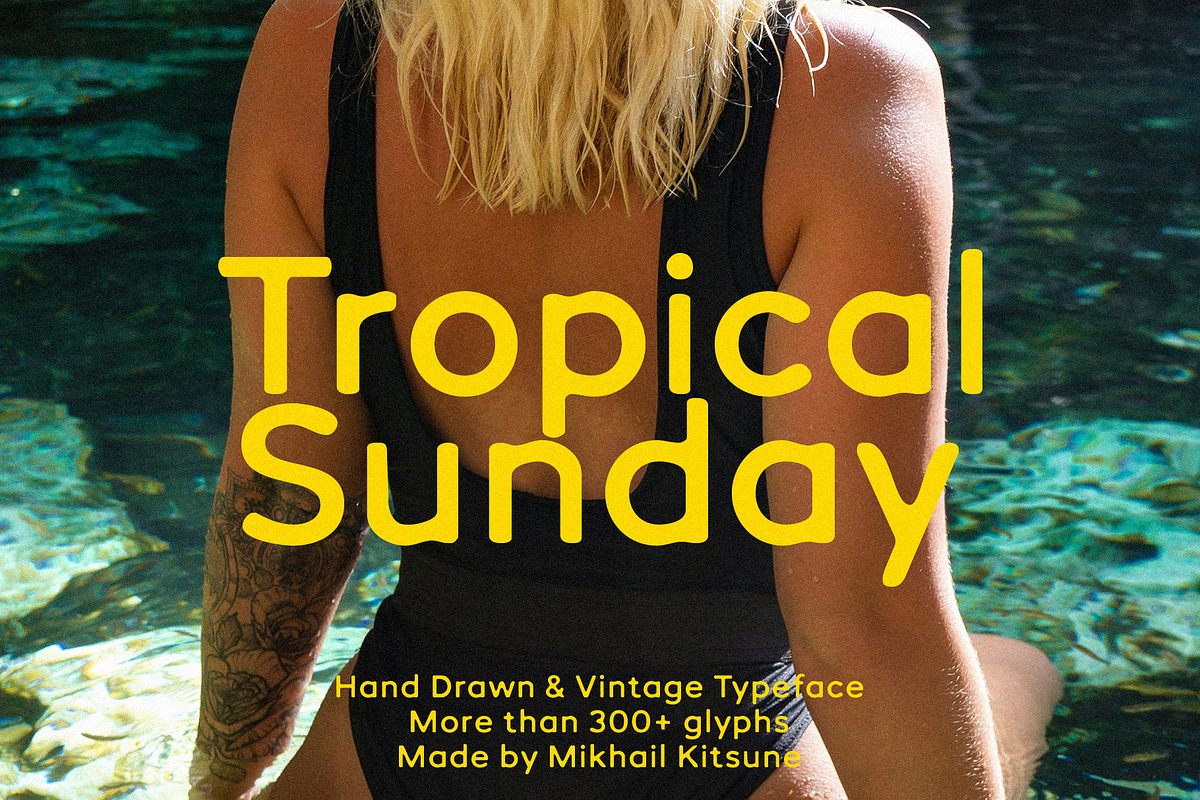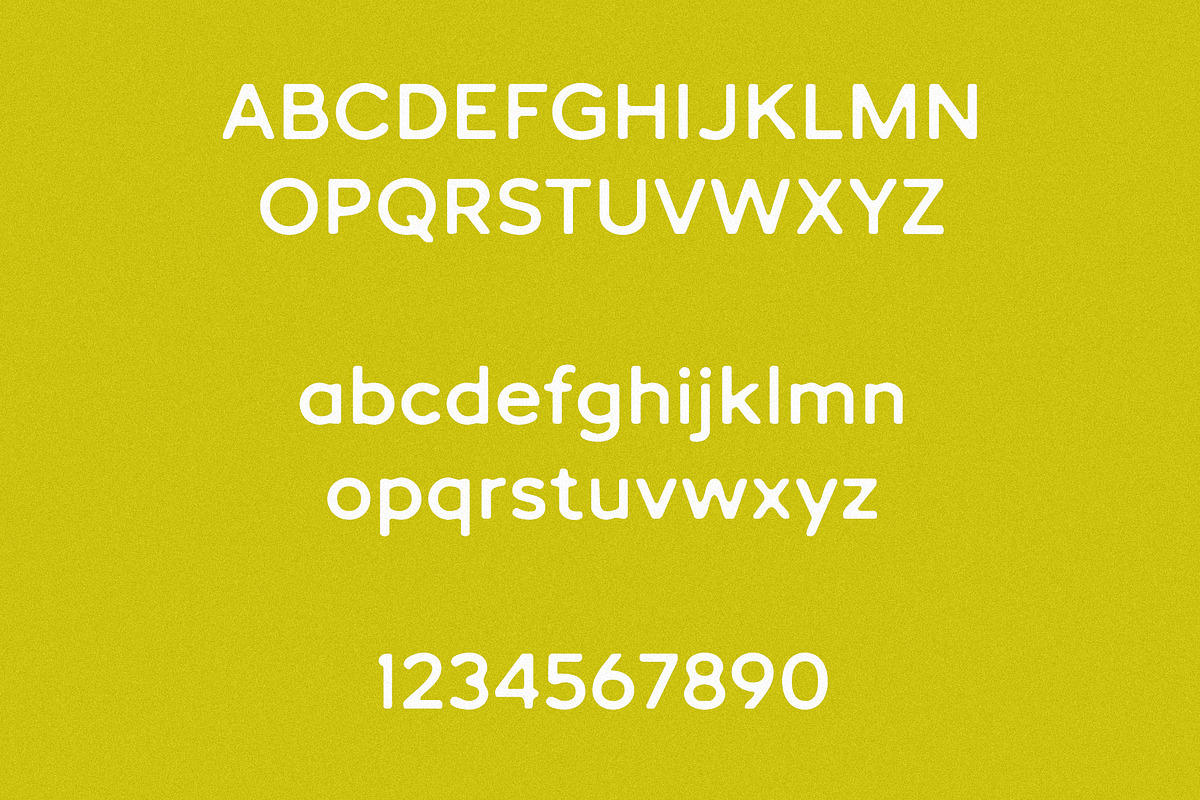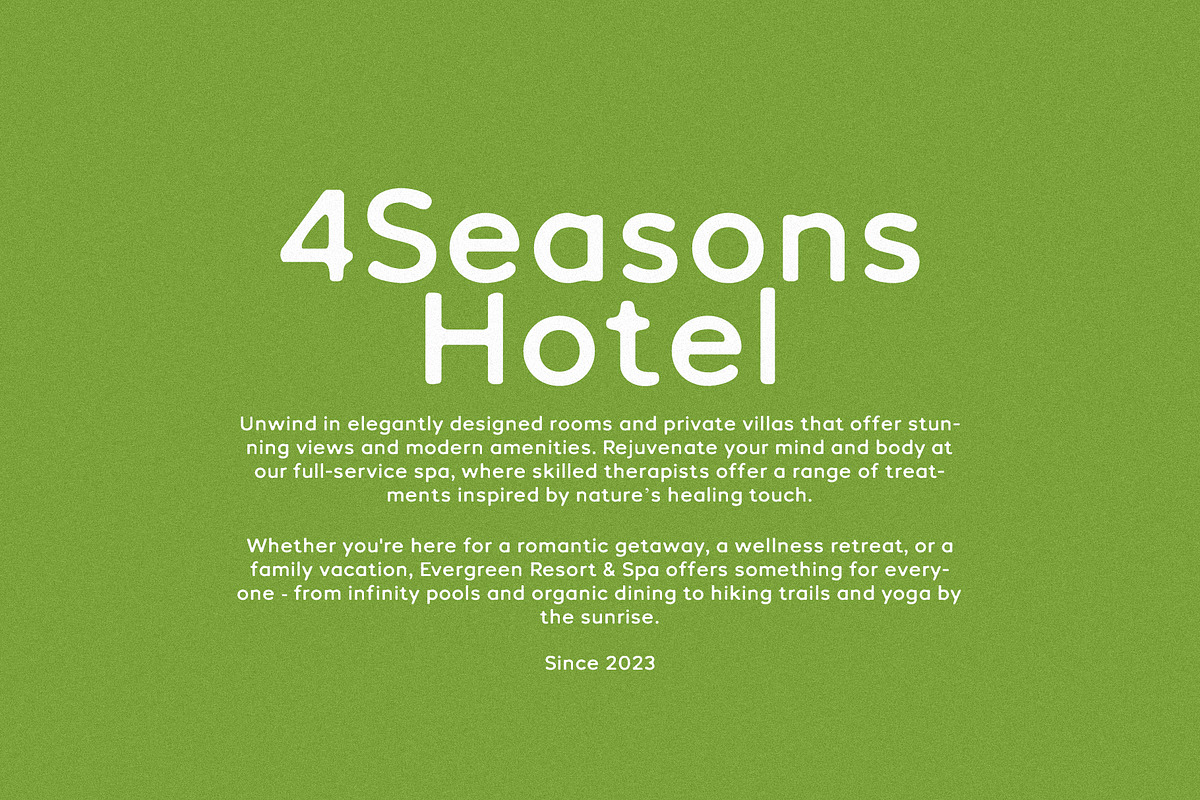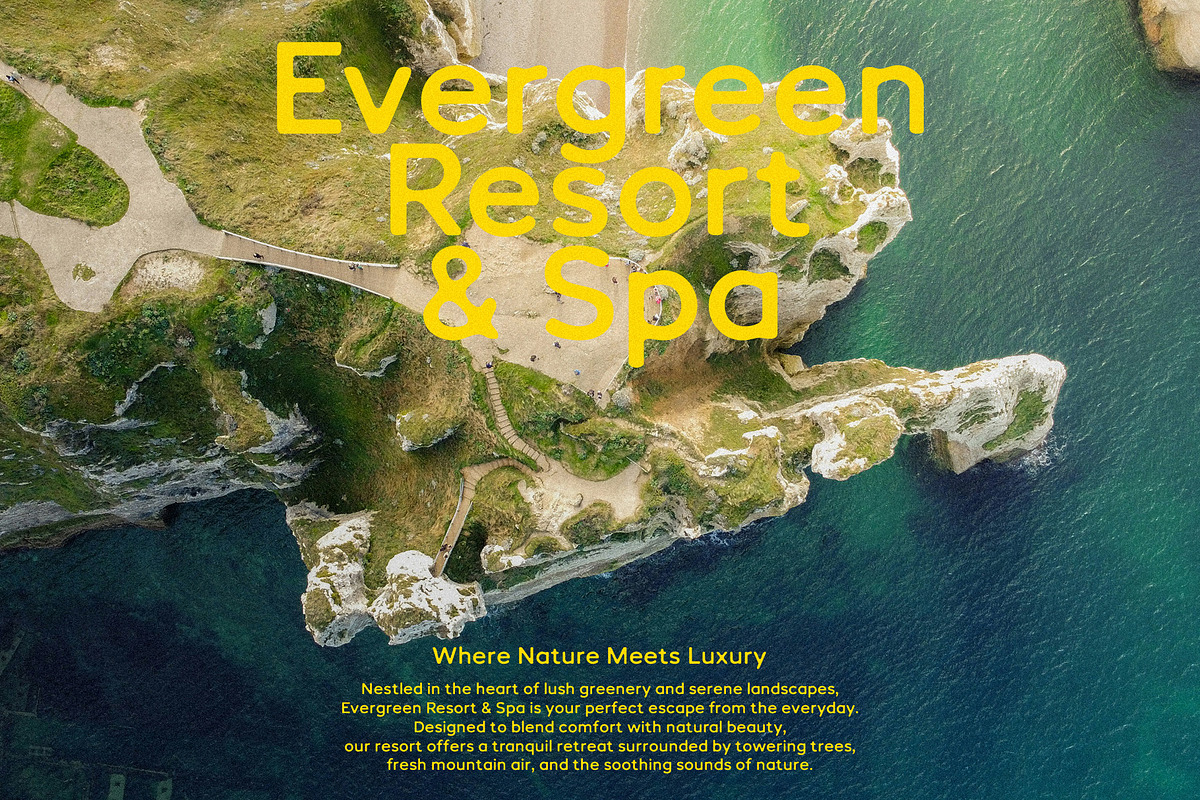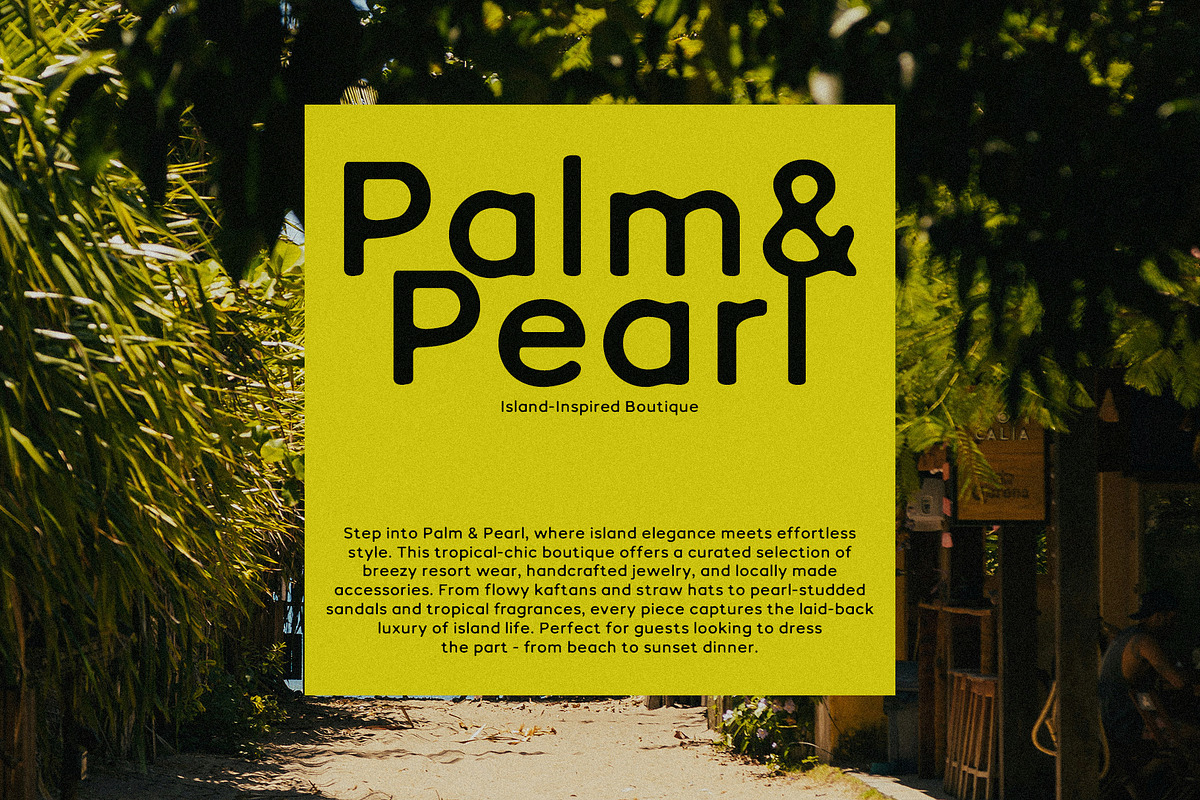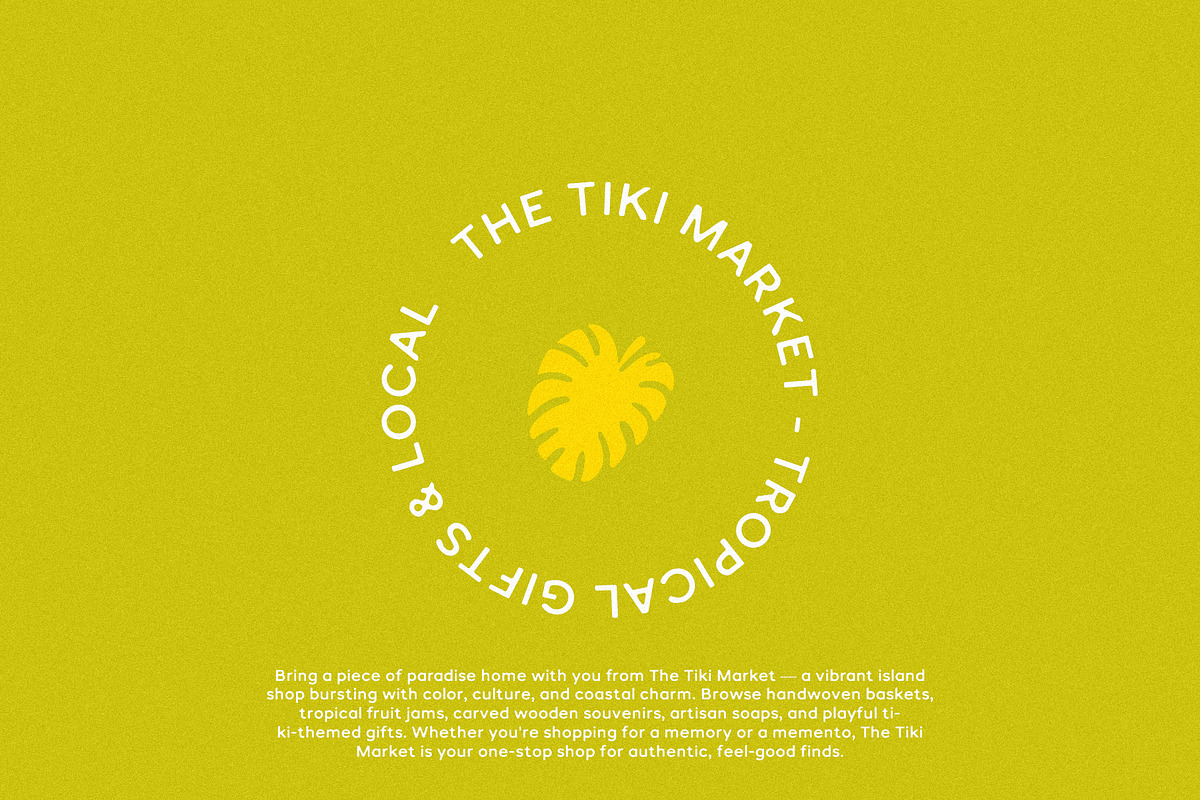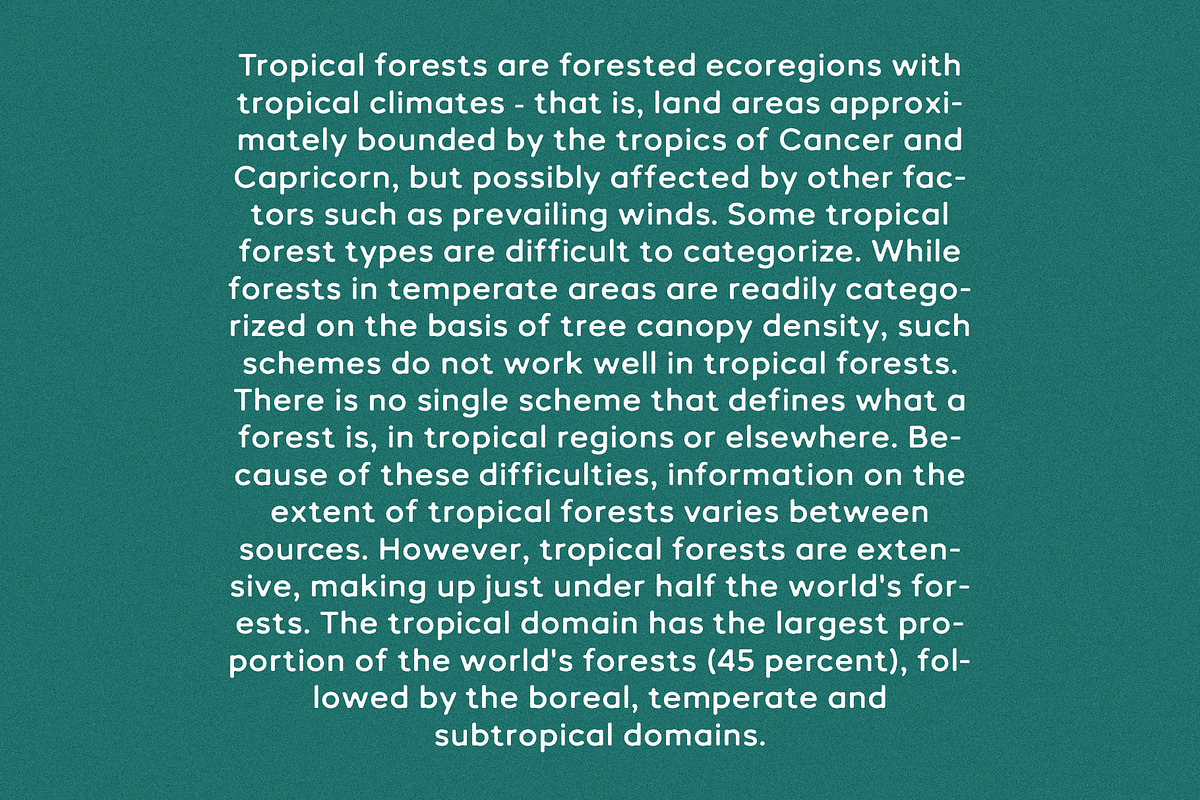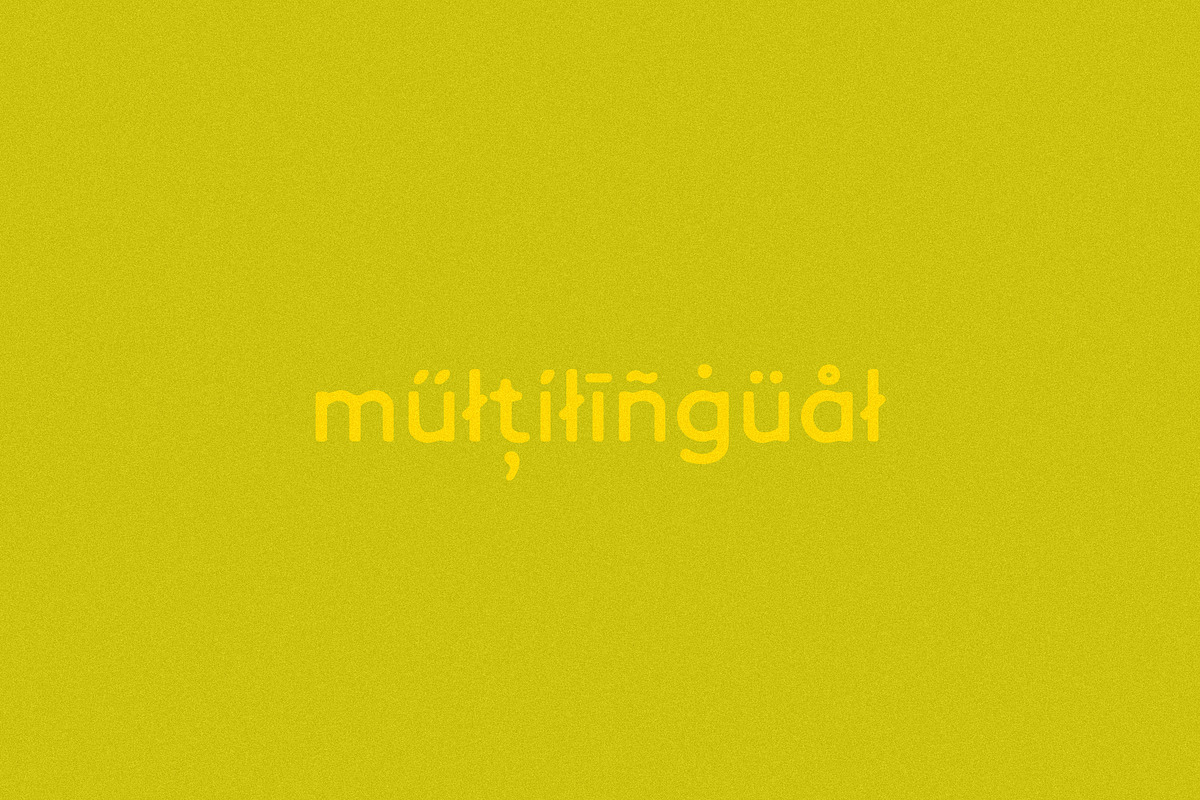
Tropical Sunday - Vintage Sans Serif
Step into a sun-soaked retro paradise with Tropical Sunday, a vintage-inspired sans serif typeface that captures the relaxed charm of island life and mid-century nostalgia. With clean lines, rounded edges, and a warm, breezy vibe, this font is perfect for branding, posters, packaging, and any creative project that calls for a touch of vintage flair.
Whether you're designing a beach-side café menu, a retro travel poster, or a laid-back lifestyle brand, Tropical Sunday brings a playful yet refined aesthetic that feels both timeless and fresh.
Tropical Sunday includes:
- Letters
- Symbols & Punctuation
- More than 300 glyphs